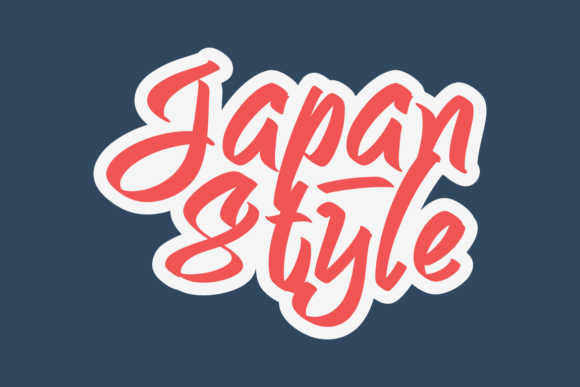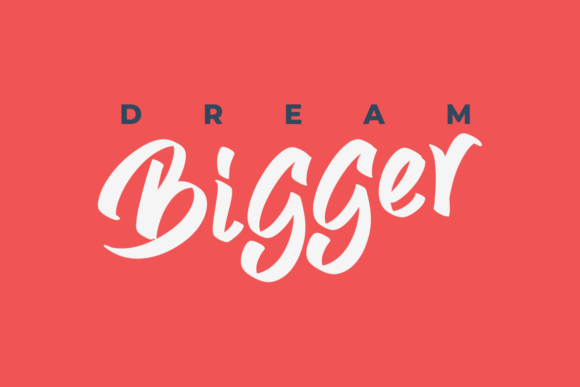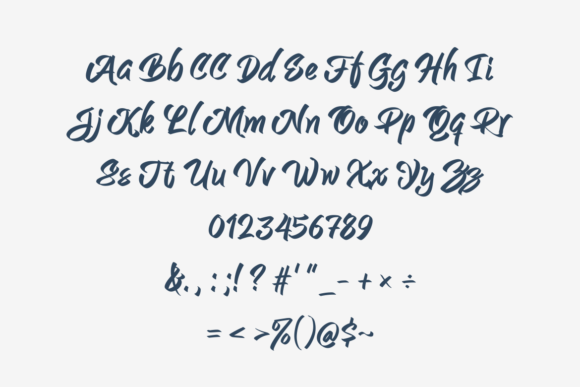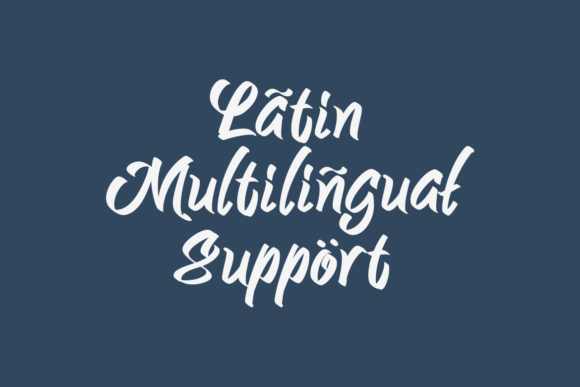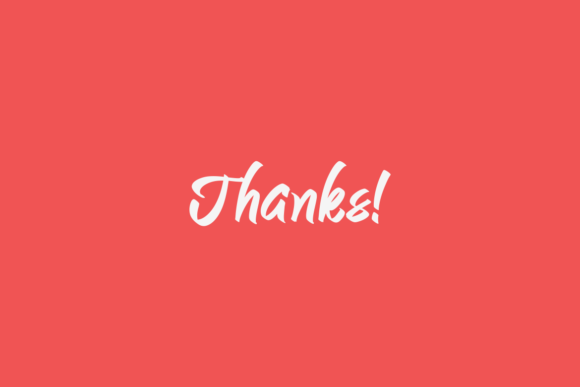
The Perfect Brush Font for Your Creative Projects: A Deep Dive into Chuga Brush
I’ll never forget the time I was working on a project for a client who wanted a font that was both casual and sophisticated. I had spent hours browsing through font libraries, but nothing seemed to fit the bill. That was until I stumbled upon Chuga Brush, an authentic brush display font that has since become a staple in my design toolkit.
Chuga Brush is a game-changer for designers, crafters, and creative hobbyists looking for a font that exudes a down-to-earth, readable, and versatile vibe. In this article, we’ll explore what makes Chuga Brush so special, its uses, and some practical tips on how to get the most out of this amazing font.
An Honest Review of Chuga Brush
What I Love About Chuga Brush ✨
- ✅ Authentic Brush Look: Chuga Brush has a genuine brush feel that adds a personal touch to any design project.
- ✅ Readability: Despite its casual charm, Chuga Brush is remarkably readable, even at smaller font sizes.
- ✅ Versatility: This font can be used in a variety of contexts, from busy backgrounds to standalone headlines.
- ✅ Ease of Use: Chuga Brush is easy to work with, even for those who are new to using brush fonts.
- ⚠️ Limited Use in Formal Contexts: While Chuga Brush is incredibly versatile, it may not be the best choice for formal or professional projects that require a more traditional font.
- ⚠️ Requires Attention to Kerning: As with any brush font, kerning can be a bit tricky, and may require some manual adjustments to get it just right.
The Story Behind Chuga Brush
Chuga Brush was designed with the intention of creating a font that felt both authentic and approachable. The designer wanted to capture the essence of hand-brushed lettering, while making it versatile enough for a wide range of applications. The result is a font that feels like it was painted on the spot, with all the imperfections and charm that come with it.
| Font Name | Chuga Brush Font |
| Author | Azetype |
Q: What makes Chuga Brush so versatile?
A: Chuga Brush is versatile because of its unique blend of casual charm and readability. It can be used in a variety of contexts, from busy backgrounds to standalone headlines.
Q: Is Chuga Brush difficult to read?
A: No, Chuga Brush is remarkably readable, even at smaller font sizes. However, as with any font, it’s essential to consider the context and use it in a way that makes sense for your design.